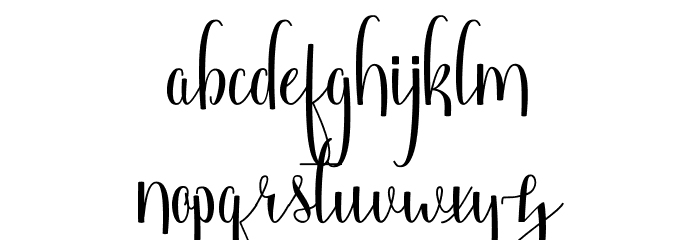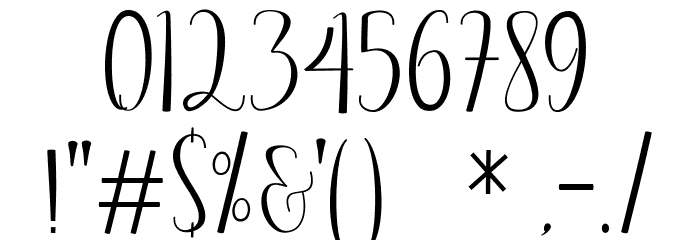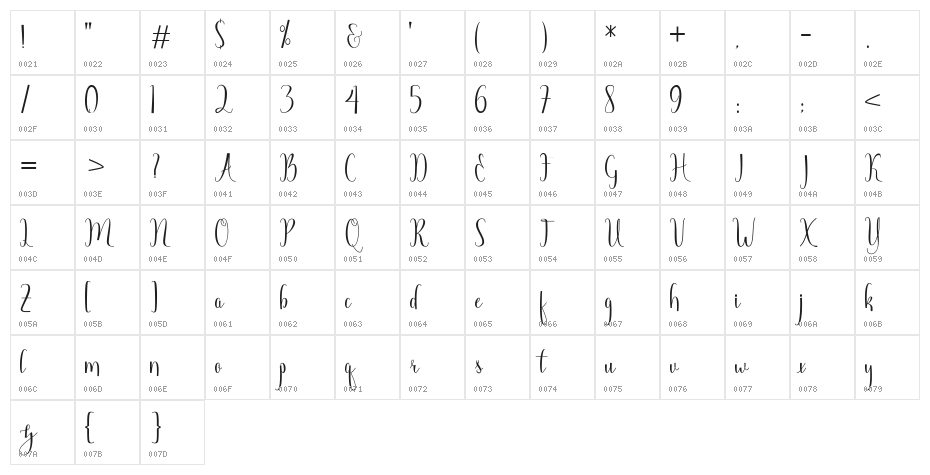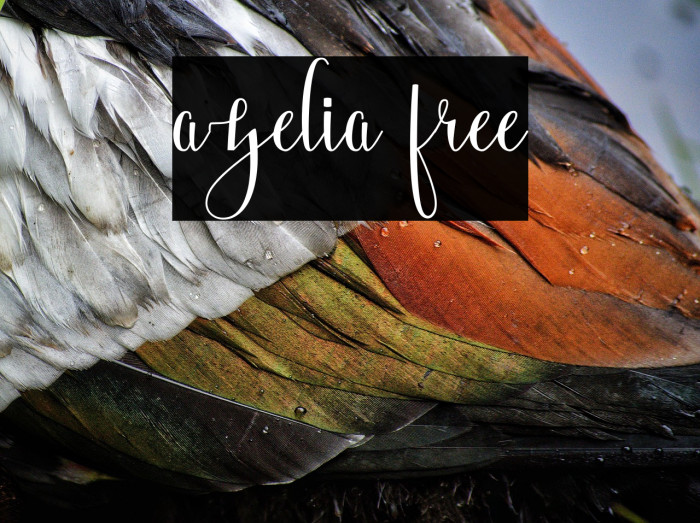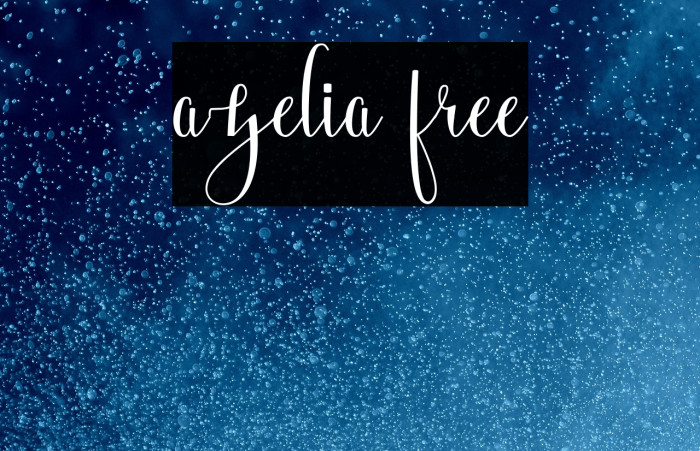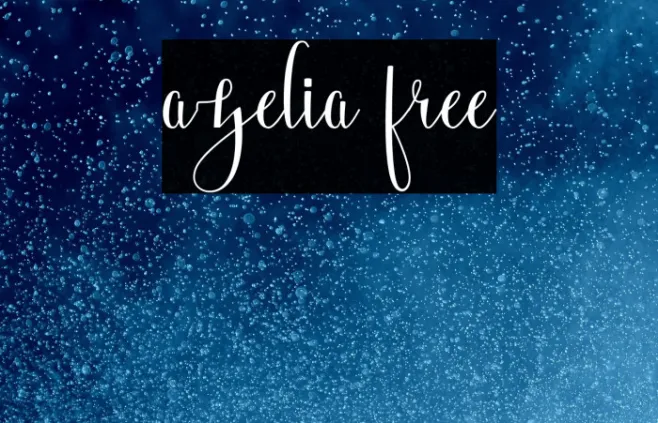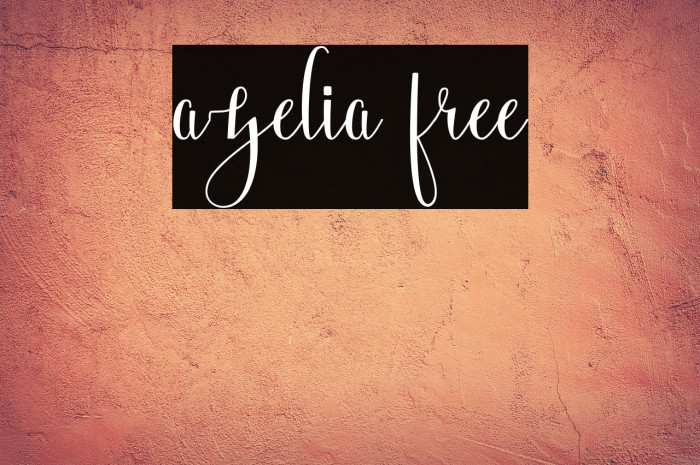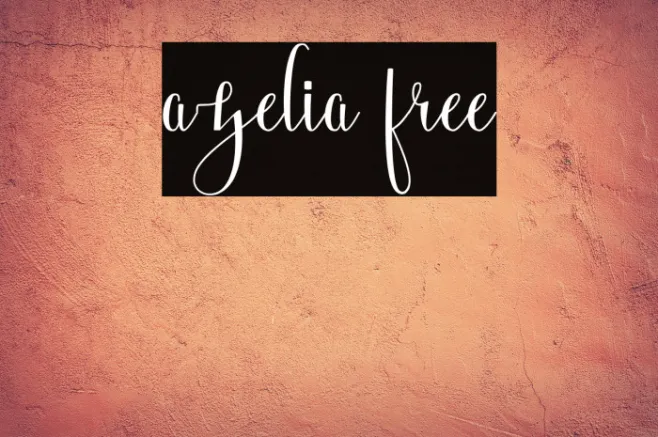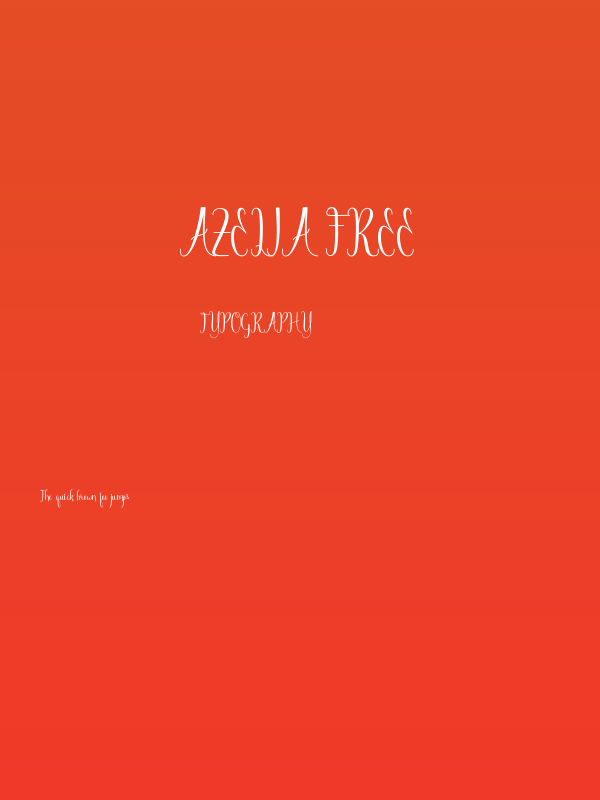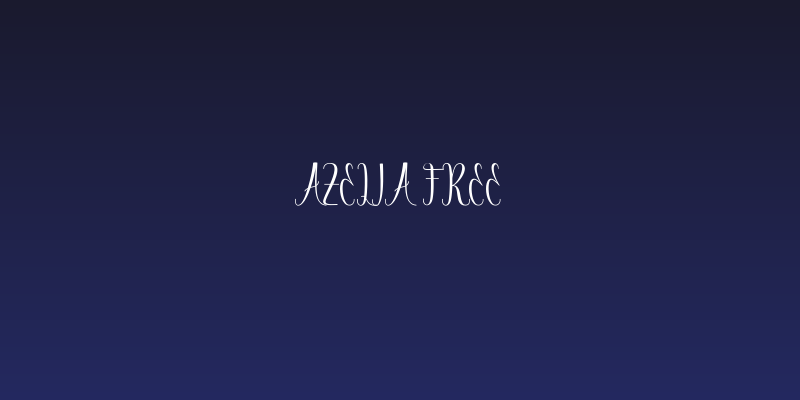
azelia free Font
This font features an elegant and flowing script style, characterized by its graceful curves and loops. The uppercase letters are tall and slender, with a distinctive flair that adds a touch of sophistication. The lowercase letters maintain a consistent style, offering a harmonious blend of curves and straight lines. The numerals are uniquely styled, matching the overall aesthetic with their elongated forms. Special characters are designed with the same attention to detail, ensuring a cohesive look across all glyphs. This font exudes a sense of elegance and charm, making it ideal for projects that require a touch of class and creativity.
An elegant and flowing script font with graceful curves and sophisticated flair.
- Proposed Projects: Ideal for wedding invitations, greeting cards, branding, and elegant packaging designs.
- Overall Style: Elegant
- Use Case: Logos, Invitations, Decorative text